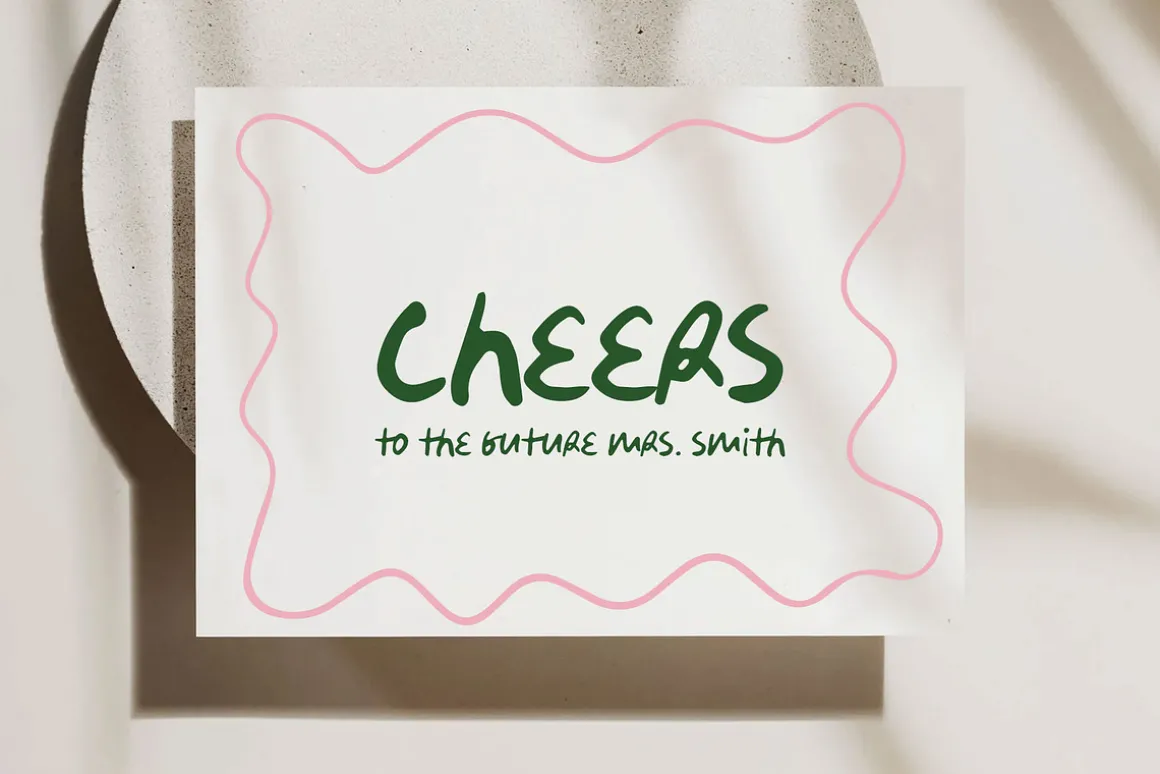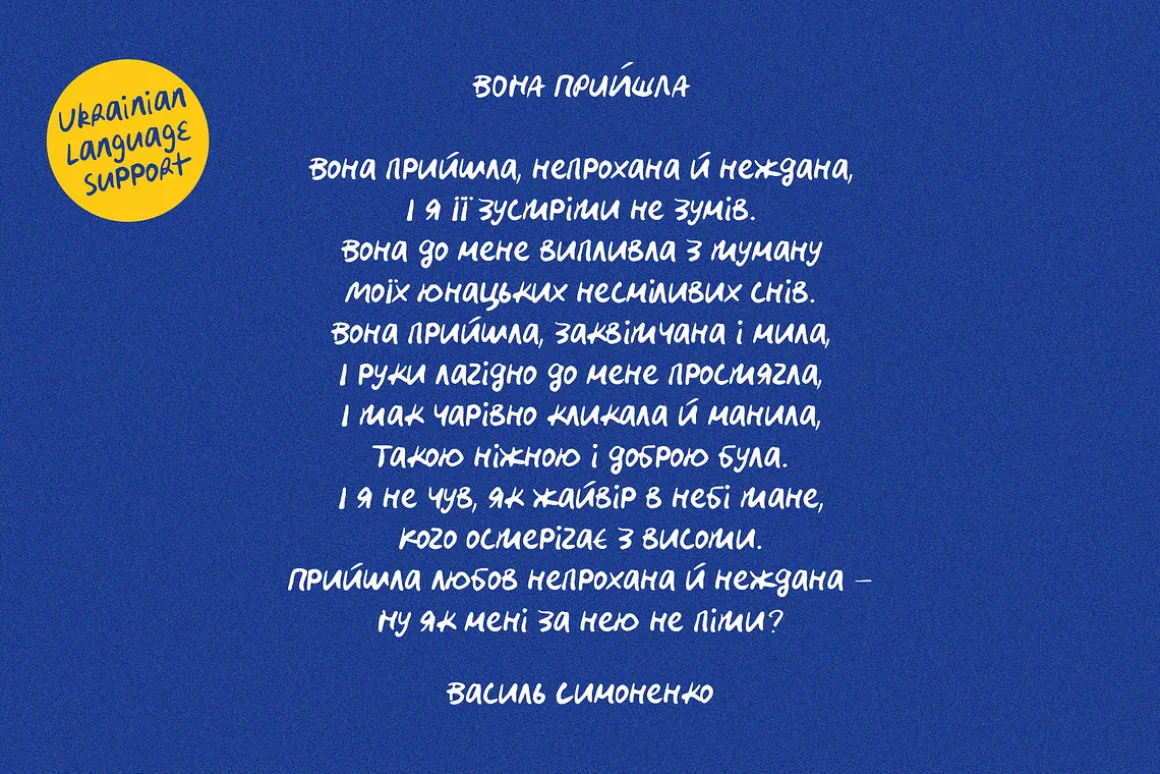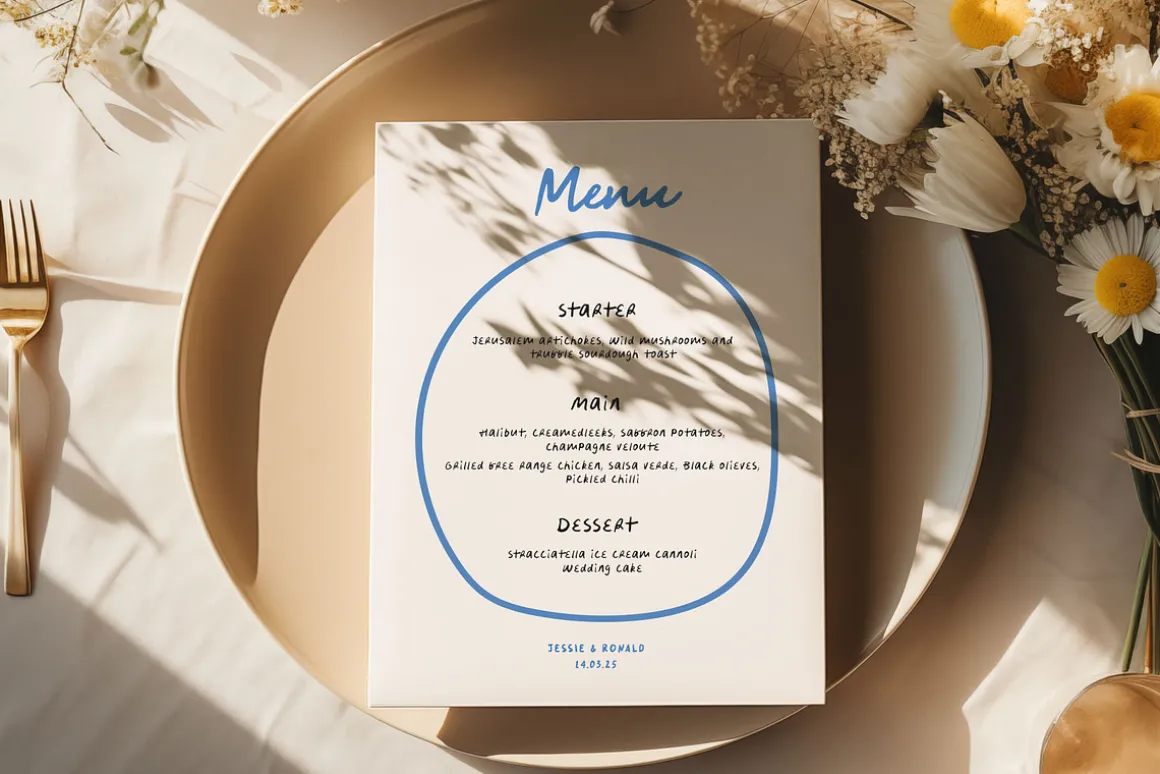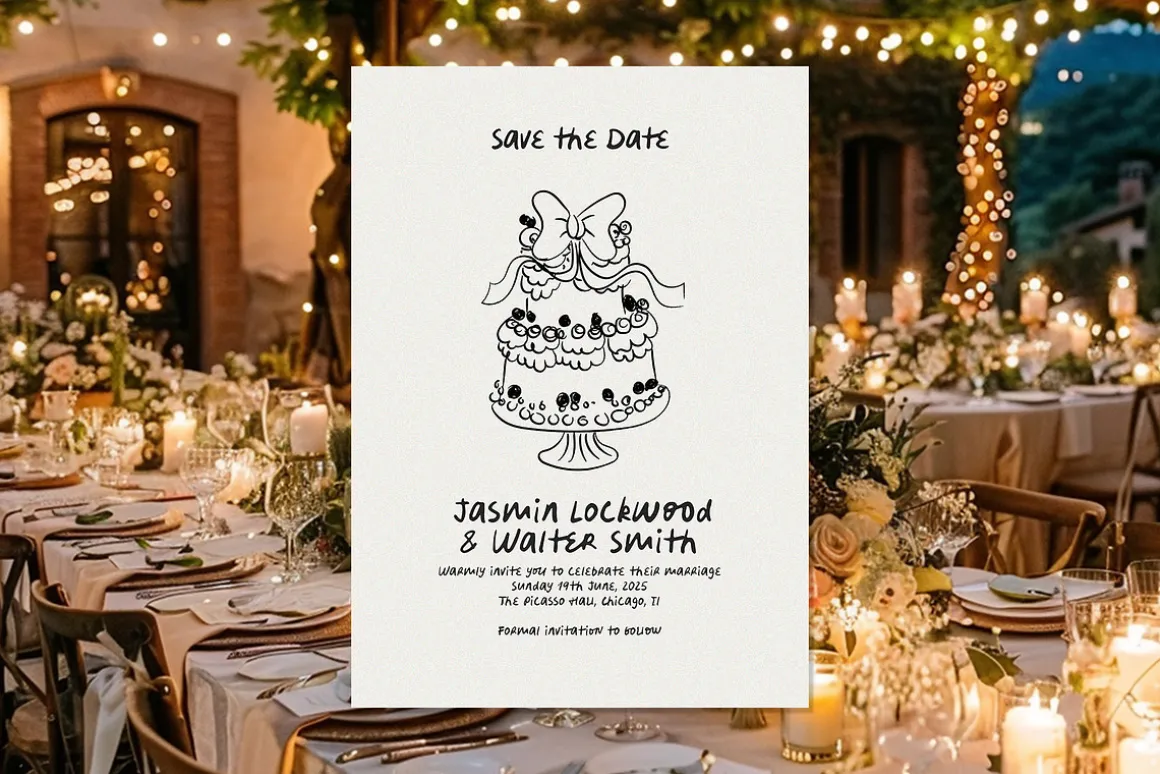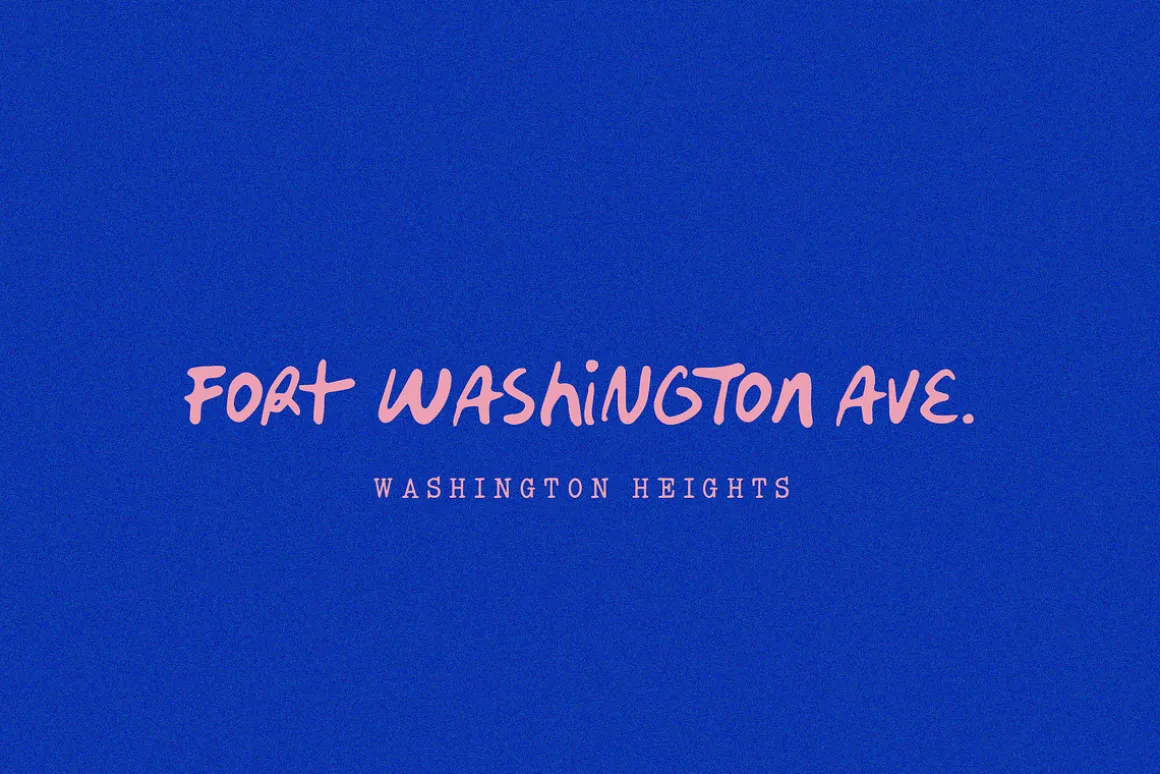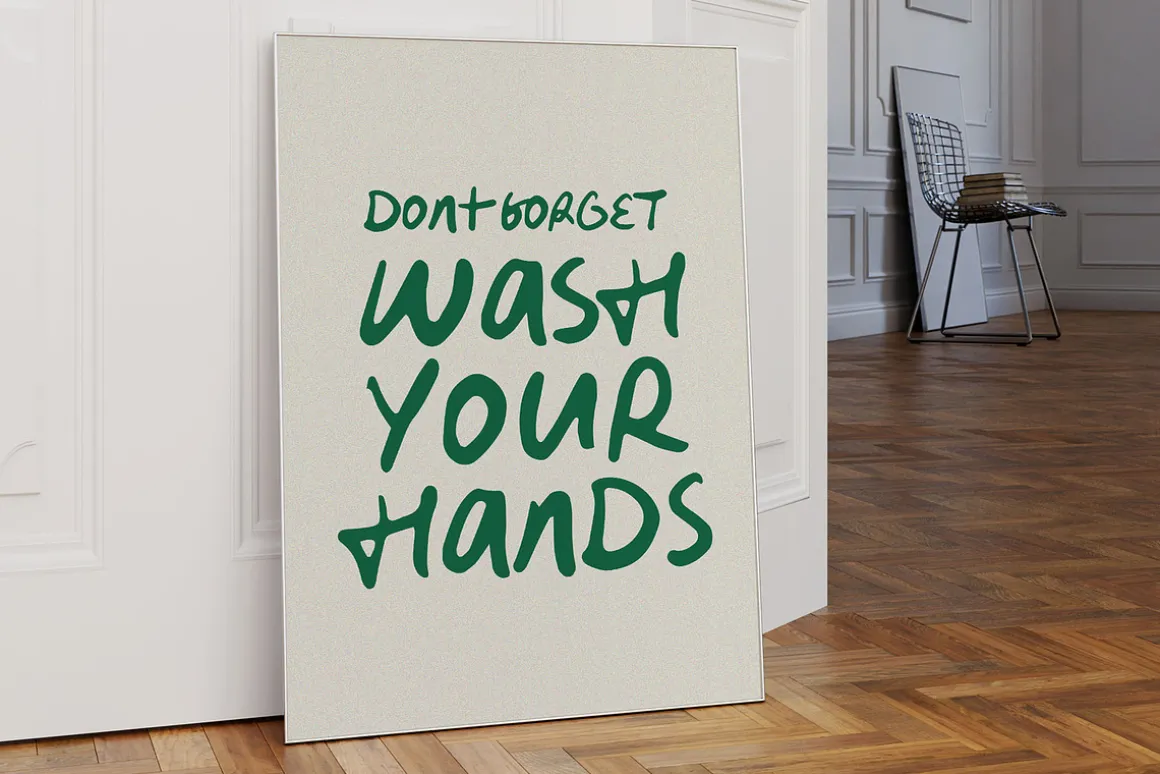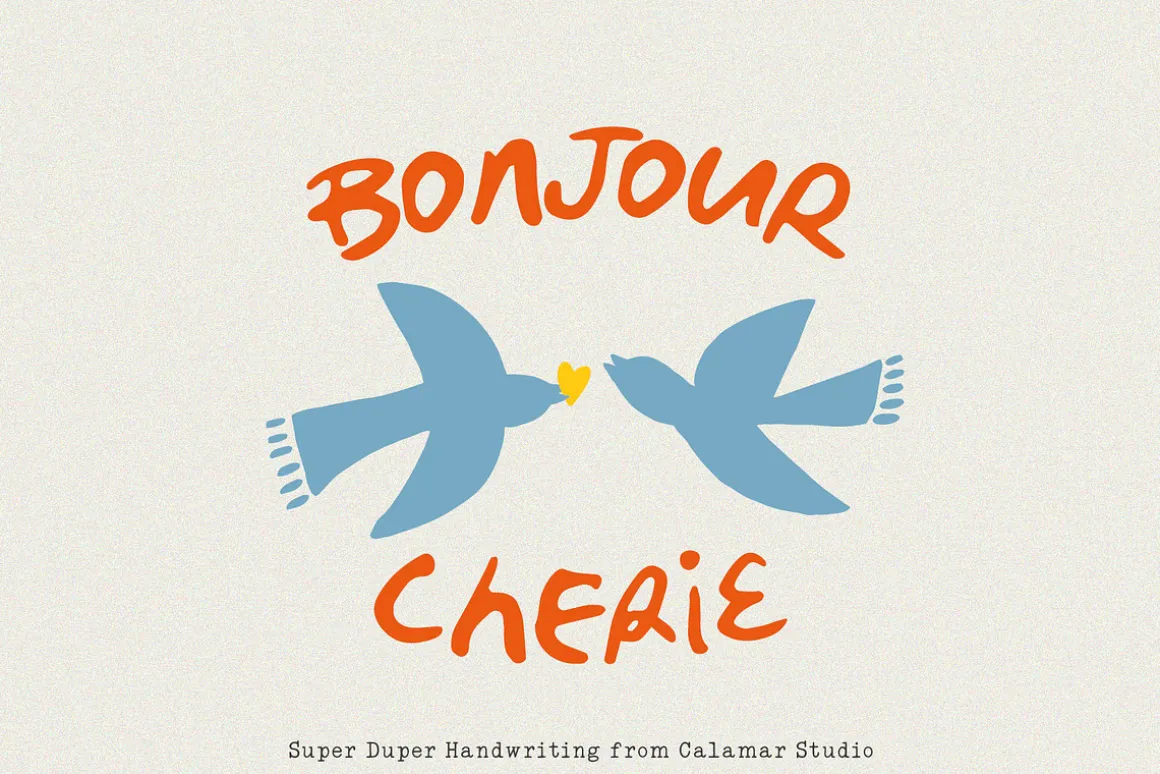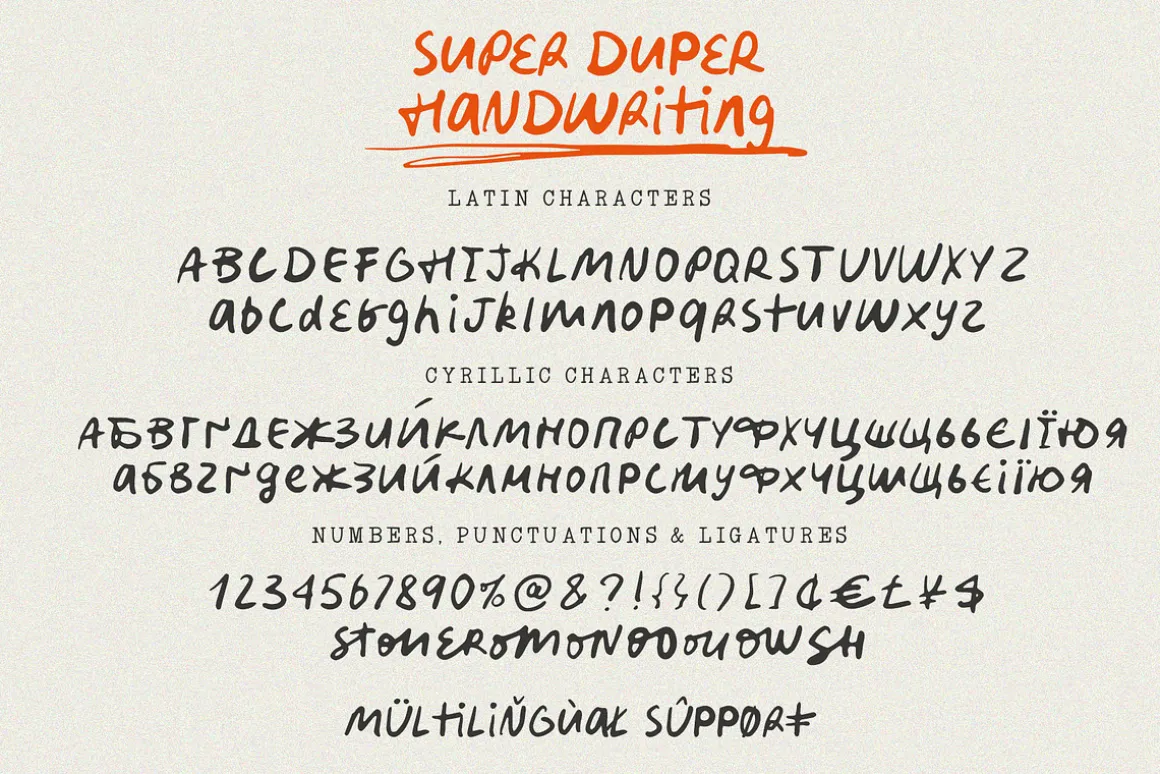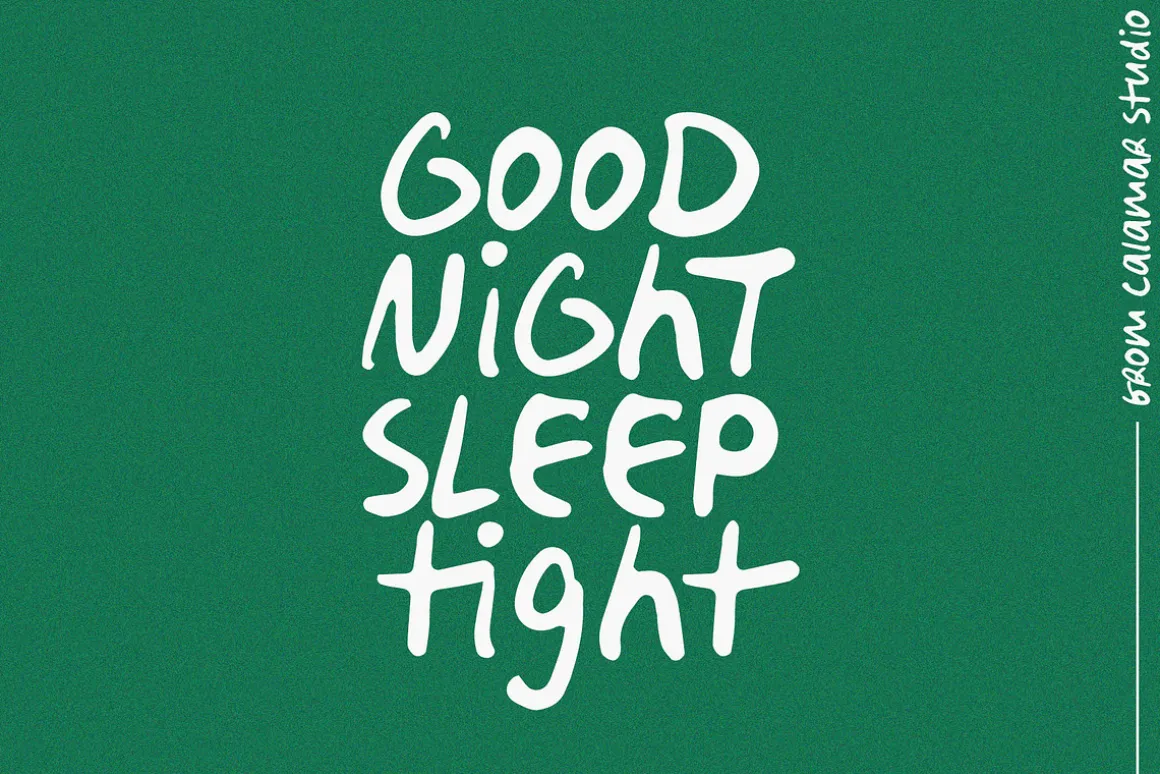
Introducing you the new handwritten font that looks like a messy and realistic handwriting – Super Duper Handwriting.
It will look great for greeting cards, stickers, modern wall arts, instagram posts, quotes, playful branding. You don’t need any special programs to use this font. All is super easy. Just type the lower or uppercase letters and create your design.
Pay attention, although the font comes with Cyrillic glyphs it doesn’t support all Russian alphabet characters. Font was created for Ukrainian projects. Maybe they will be added in the future.